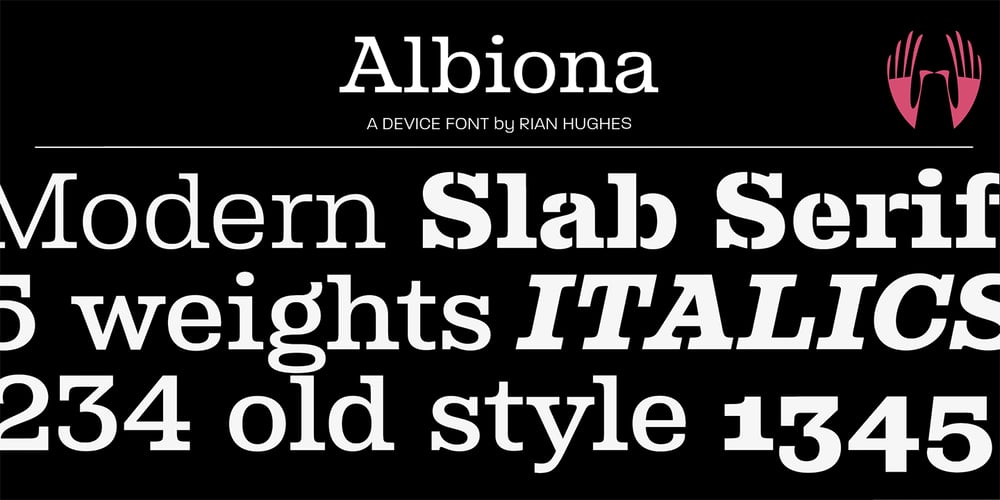
Albiona Font Family was designed by Rian Hughes and published by Device. Albiona contains 11 styles and family package options. A contemporary slab-serif which revisits aspects of Robert Besley’s all-time classic Clarendon, designed around 1842 for Thorowgood and Co. and named after the Clarendon Press in Oxford. The original design was subsequently extended by Sheffield foundry Stephenson Blake in the 1950s into a widely-used, robust workhorse family.Albiona uses the inwardly curved stroke terminals of the same foundry’s Grotesque series, while rationalising or removing entirely Clarendon’s ball serifs, flicked tails and other eccentricities to make it more functional incontemporary settings. The family consists of five weights plus italics and a stencil, and includes oldstyle and tabular numerals. Its clean readable style suits both text and headline setting.